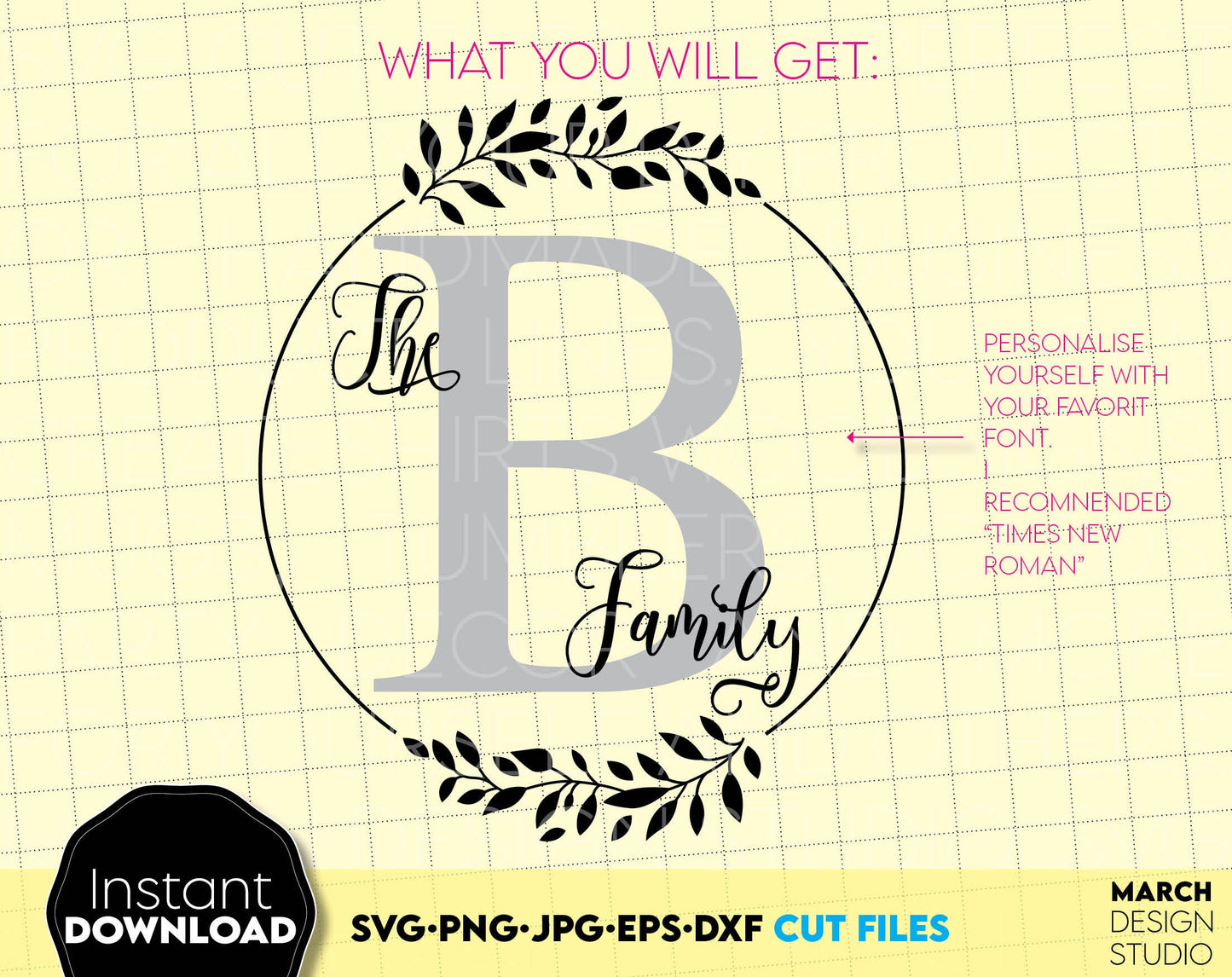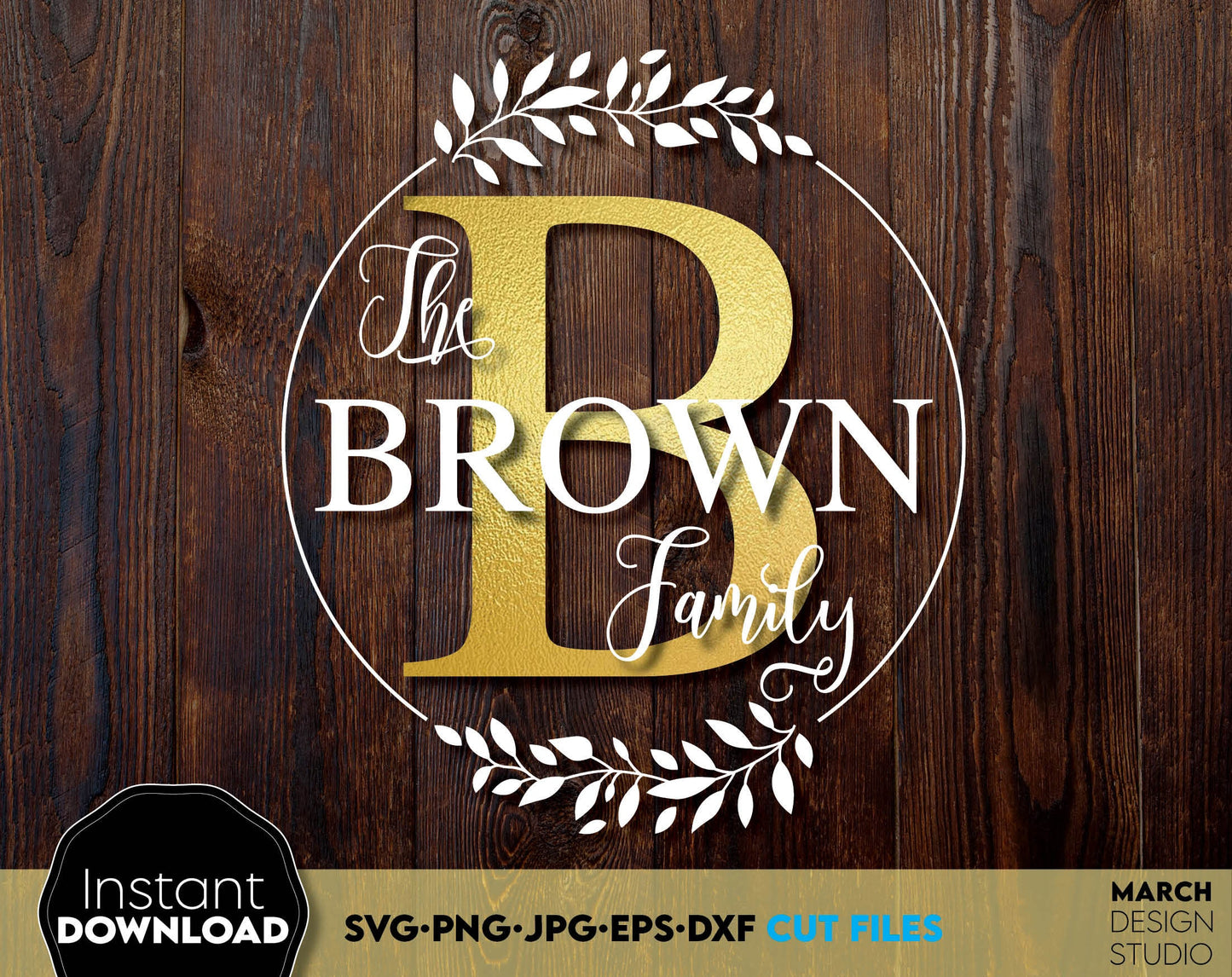
Letter B Monogram SVG | Letter B Font | Last Name Monogram SVG | custom family sign svg | circle monogram svg | svg Files For Cricut
Letter B monogram with letter B font and with floral circle design for Your gift projects or home decoration.